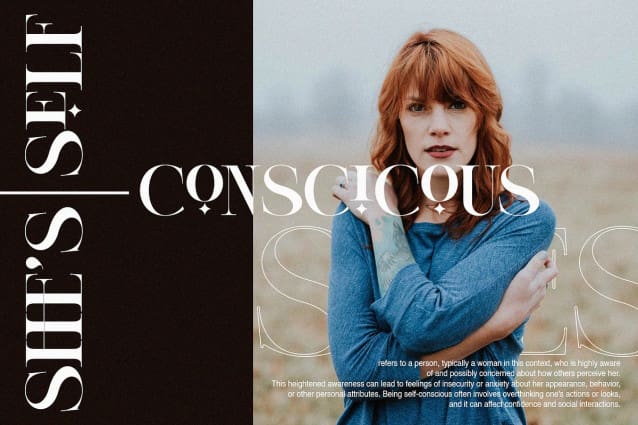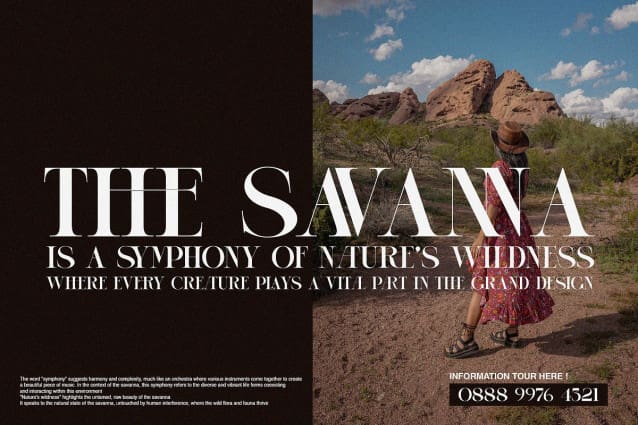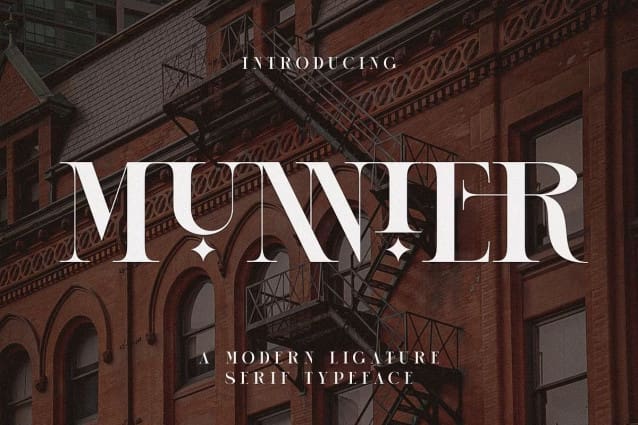
Munnier Font
Munnier Font – Modern and beautiful Ligature Serif Typeface inspired by the famous minimalist logo perfect for the purposes of designing templates, brochures, videos, advertising branding, logos, invitation, layout design, elegant crafting, beauty design and other